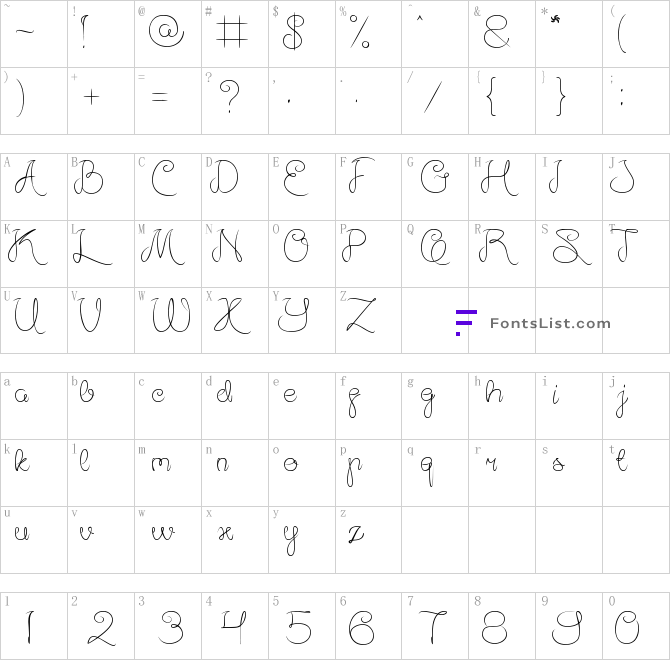
- Font Name:Amazing Day Everyday
Amazing-Day-Everyday.ttf is a very beautiful artistic font, Amazing-Day-Everyday.ttf is widely used in the design and printing of various books and pictures,Amazing-Day-Everyday.ttf has a strong visual impact,Amazing-Day-Everyday.ttf is a commonly used font in newspapers, magazines and books, and is used in posters, e-commerce Poster design, store design, logo design, font design and other fields.Amazing-Day-Everyday.